Pentagram reinvents Minneapolis’ Nicollet Avenue through design
Nicollet Avenue is the “Main Street” of downtown Minneapolis. The major street in Minneapolis, Minnesota and three of its suburbs passes through a number of locally well-known neighborhoods and districts, notably Eat Street in south Minneapolis and the traffic-restricted Nicollet Mall in the city's downtown. Nicollet Avenue was named for early 19th-century French explorer and cartographer Joseph Nicollet, who led three expeditions in what is now Minnesota and is regarded one of the most iconic spots in the city.
After undergoing a major renovation the cultural and commercial center and shopping and dining district which attracts people to work, shop and eat year round is more pedestrian friendly. As part of the revitalization Pentagram’s Paula Scher worked closely with James Corner, Field Operations, the renovation architects, the Mpls Downtown Improvement District and the City of Minneapolis to reinvent Nicollet with a brand identity and comprehensive program of signage, wayfinding and environmental graphics that capture the spirit of the street and its place in Minneapolis.
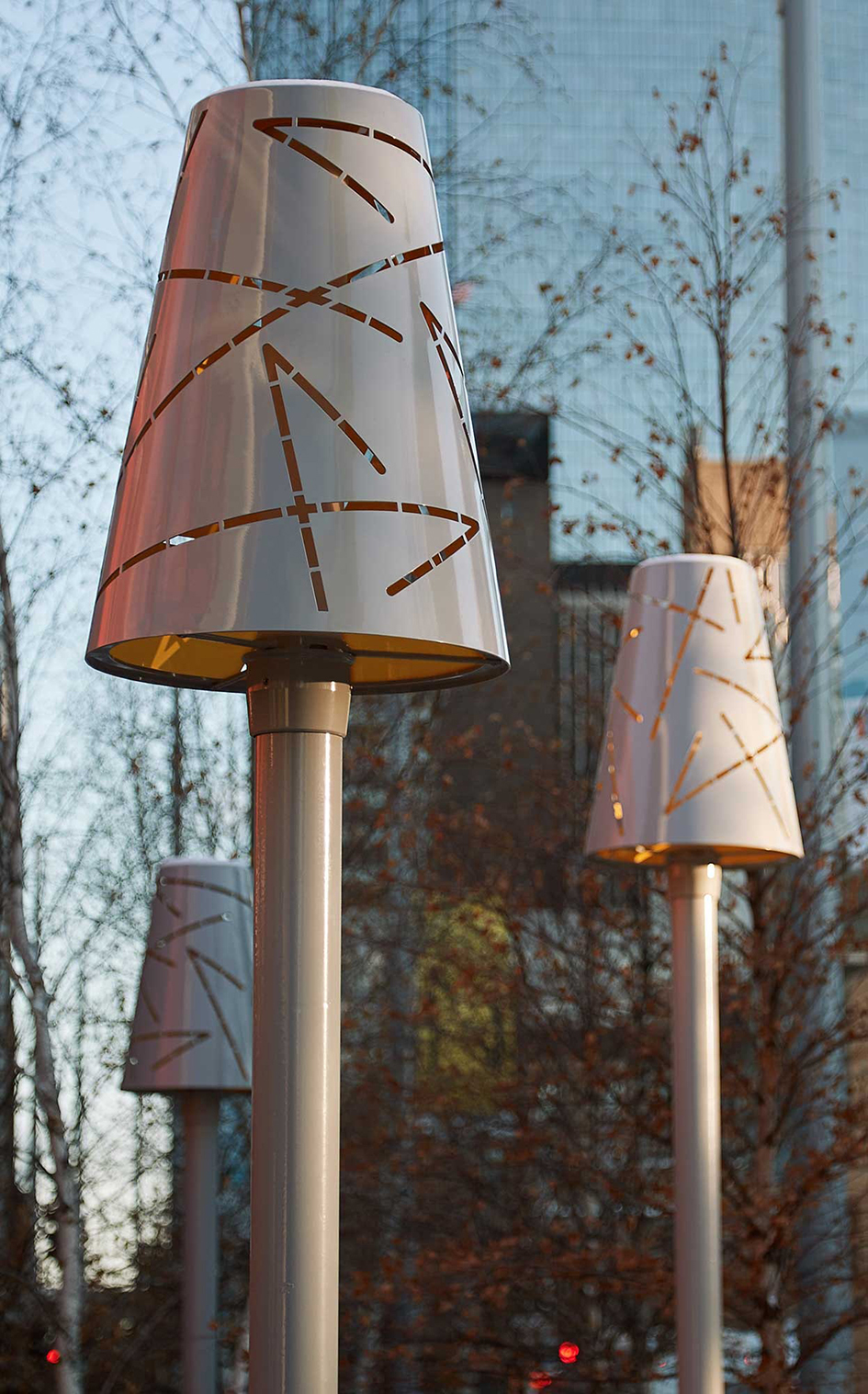
The area is known as Nicollet Mall, but the city wanted to move away from “mall” because it is too limiting and implies the street is a shopping mall. While there are stores and restaurants on Nicollet, it is much bigger than the sum of its parts, a vital thoroughfare and integral part of the city that helps define the character of downtown and offers many visitors their first impression of Minneapolis. The brand messaging captures all this in a simple tagline, “On Nicollet,” that highlights the avenue as a destination.
The identity centers on a letter “N” built from two sides of a directional arrow, one going up and one going down, conveying the movement of traffic and arterial role of Nicollet. The arrow forms can also be used to construct a letter “M,” for the “MN” Minnesota state abbreviation, or “NM” for Nicollet Mall. Typography is set in the highly legible sans serif Fakt, and the traffic-oriented color palette features a bright, eye-catching yellow, along with black and white reports Pentagram.
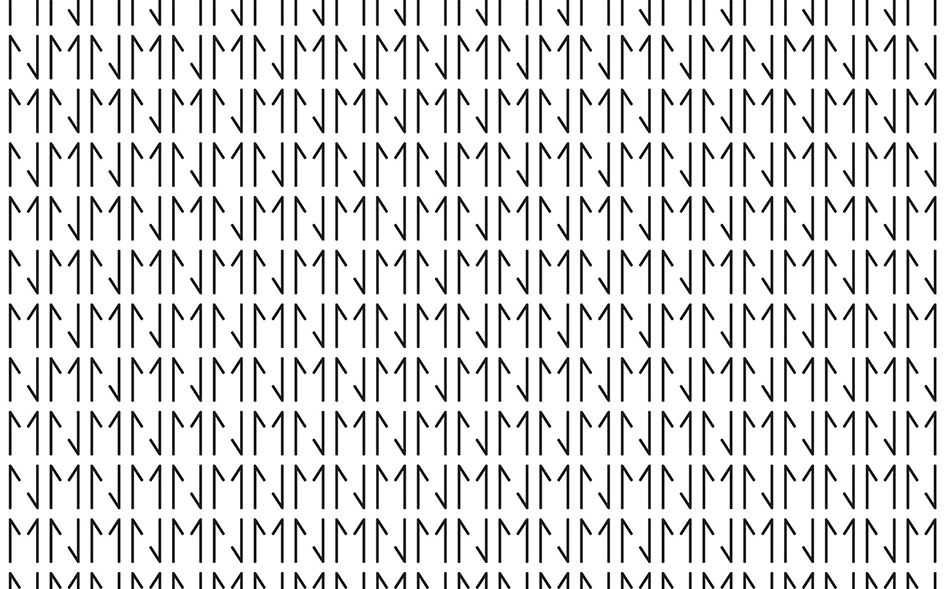
Coinciding with the 50th anniversary of Nicollet Mall, the new renovation improves the walking experience along Nicollet with clearly marked walkways, curb-free intersections,1,500 LED lights illuminating the new sidewalks and streets, native plantings with locally grown trees, comfortable seating, a curated outdoor gallery of public art and new two-block “Light Walk,” and flexible spaces to support and enhance the outdoor cafés, markets, festivals and other street activities, as well as infrastructure upgrades below ground.
“The directional elements of the Nicollet branding extend to a comprehensive program of signage and environmental graphics for the street, including directories, kiosks, banners and street signs. The fold of the logo provides the form for dimensional signage affixed to poles and street lights. Other wayfinding is inset in the pavement, where the arrows provide direction, and they can also be used as a graphic pattern, as seen on heat lamps along the avenue” notes the world's largest independent design consultancy.